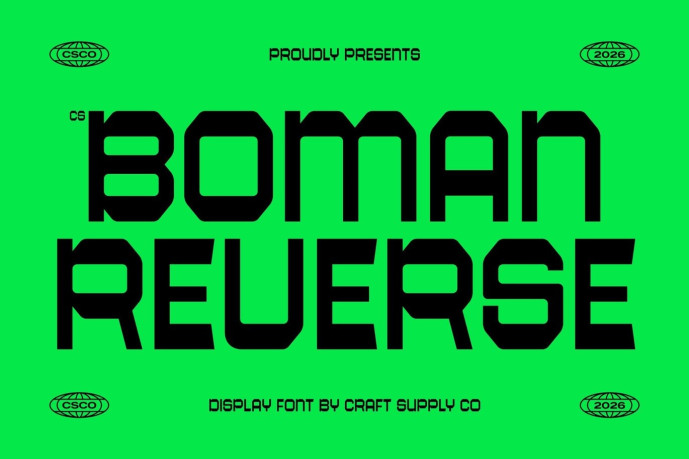
Boman – Reverse Contrast Font
Designer: Craft Supply Co.
CS Boman – Reverse Contrast Display Sans Serif: Where Modular Precision Meets Futuristic Industrial Design Wide Proportions with Chamfered Geometry This is a reverse contrast display sans serif featuring modular construction, chamfered corners, and wide, balanced proportions. Its unconventional stroke contrast creates a distinctive visual rhythm, while the precisely engineered letterforms deliver a bold and confident presence. The chamfered edges introduce an architectural quality that reinforces its clean, contemporary character.
Futuristic Design with Industrial Inspiration This font combines geometric precision with a streamlined modular structure. Its sharp chamfered details and balanced forms create typography that feels modern, technological, and highly functional. The subtle industrial influence gives the font a strong identity that is both innovative and timeless.
Contemporary Style with Distinctive Impact This font creates a unique visual identity that stands apart from conventional display fonts. Its clean forms communicate precision and professionalism, while the wide proportions ensure exceptional visual impact in large-format applications. The result is typography that feels bold, futuristic, and unmistakably distinctive.
Perfect for Gaming, and Technology Visual Identities Perfect for branding, logos, posters, packaging, editorial headlines, gaming graphics, technology-focused visual identities, digital interfaces, advertising campaigns, and other contemporary creative projects. Its reverse contrast styling, modular construction, and industrial-inspired aesthetic make it ideal for designs that communicate innovation, strength, and modern sophistication.